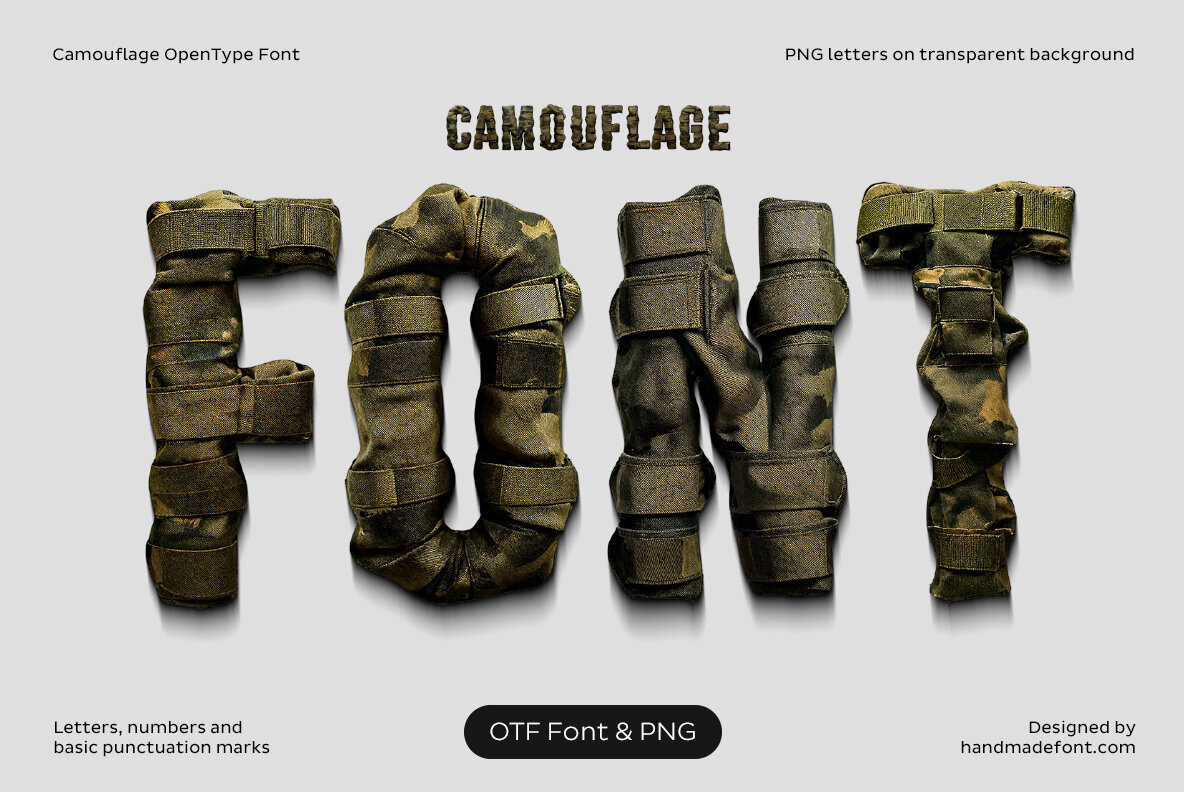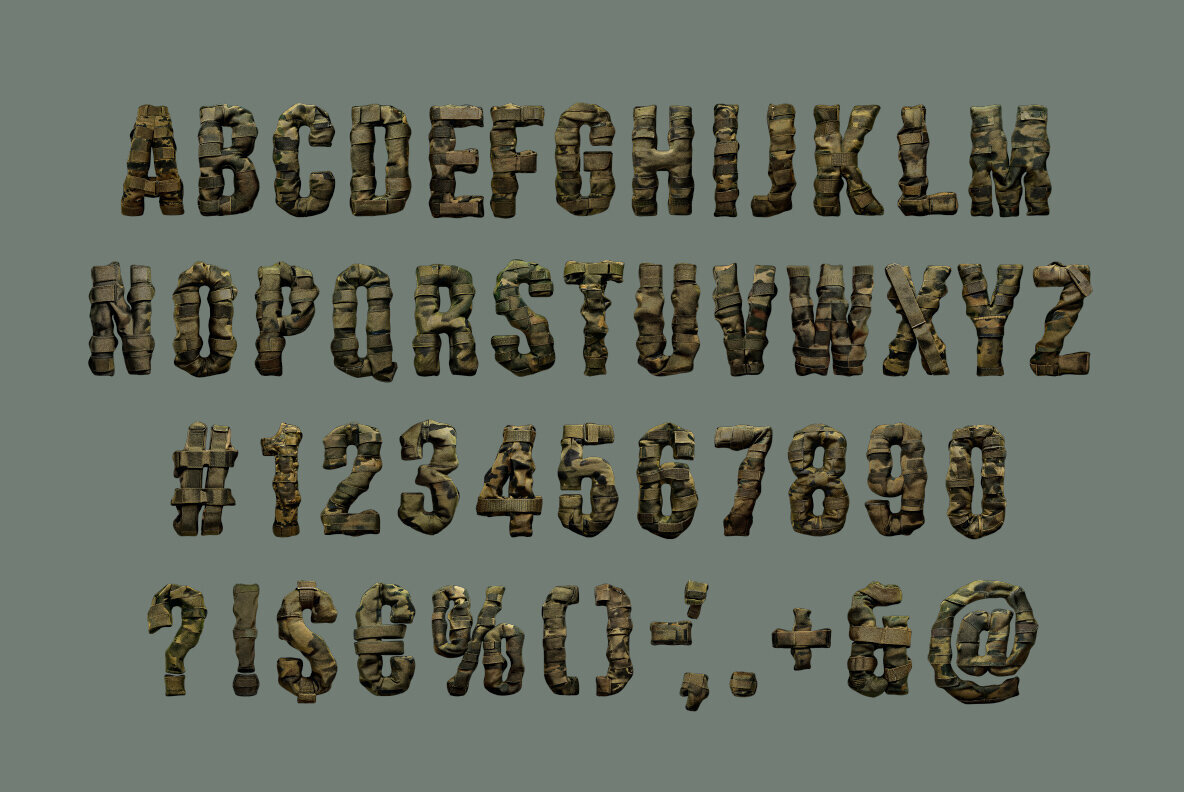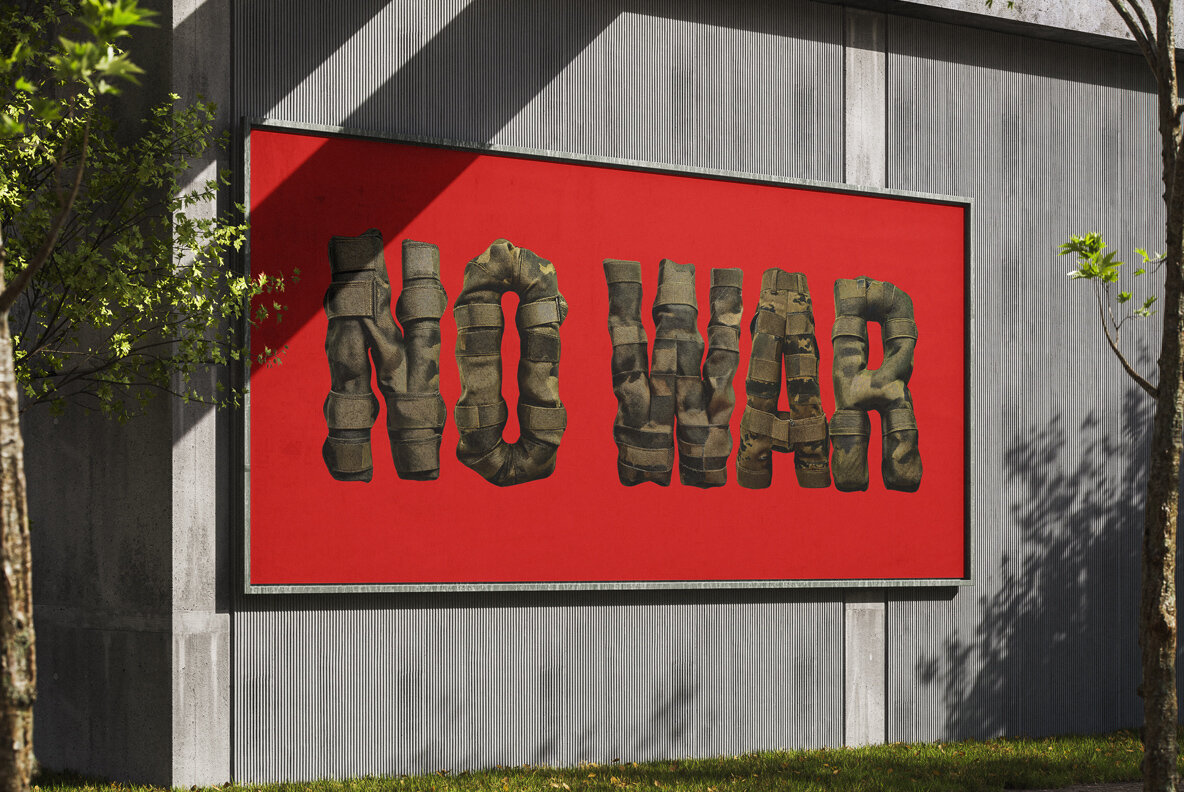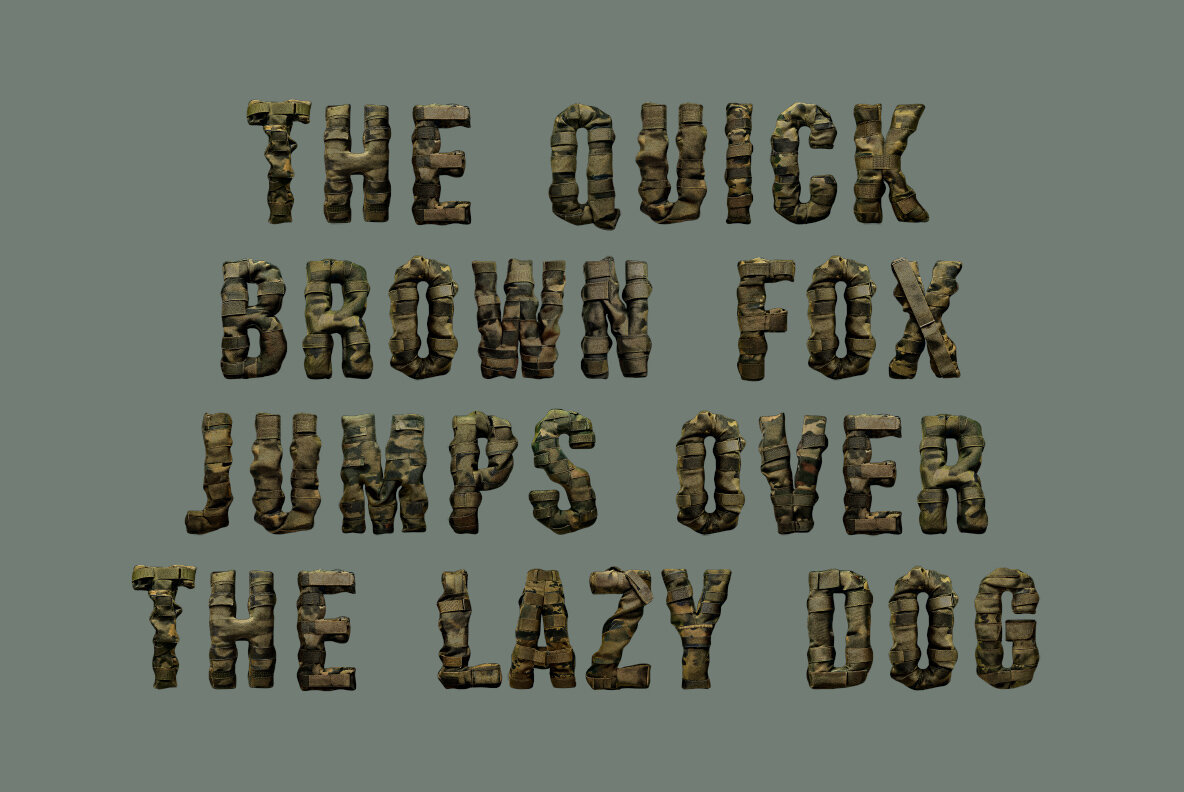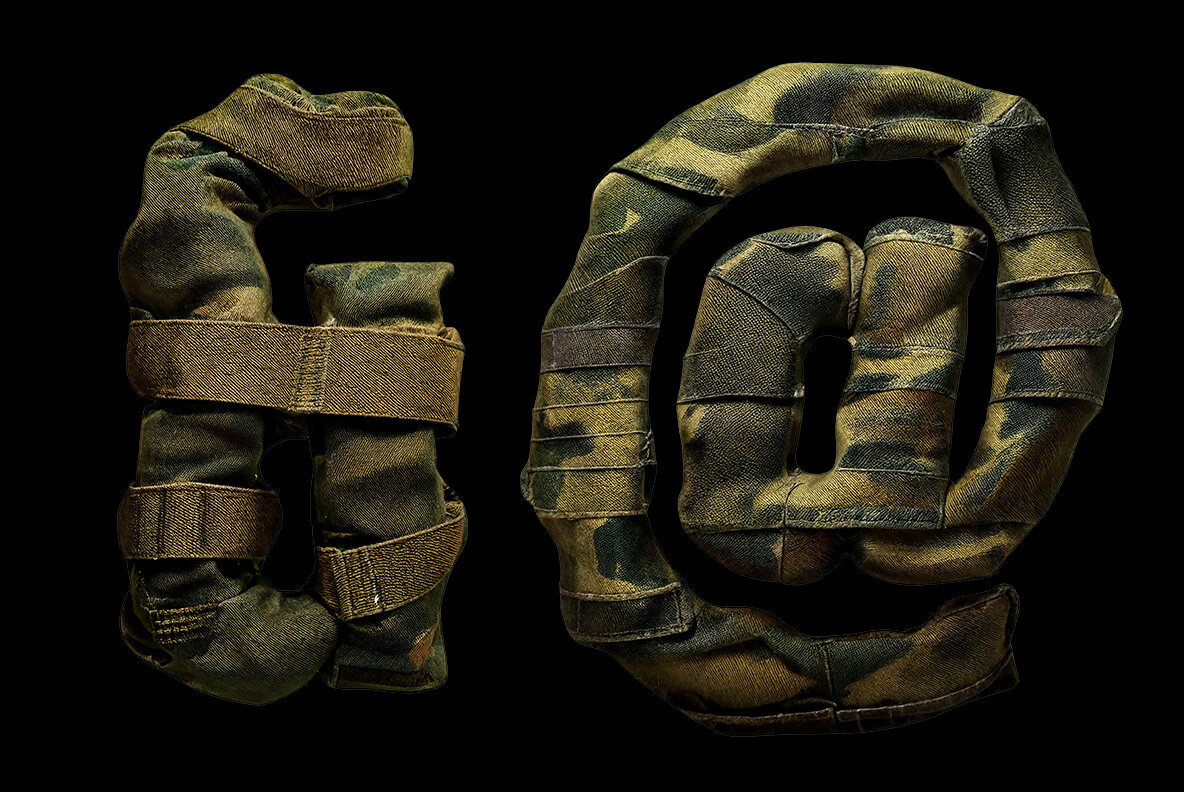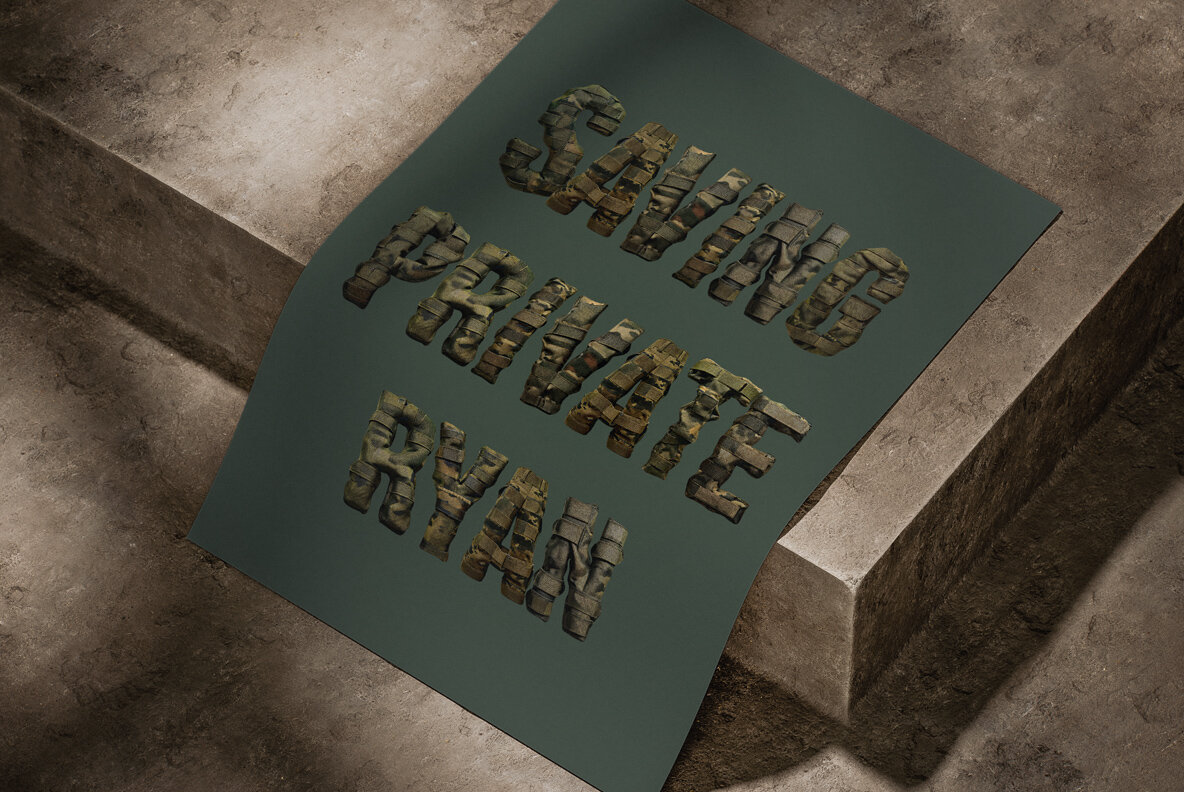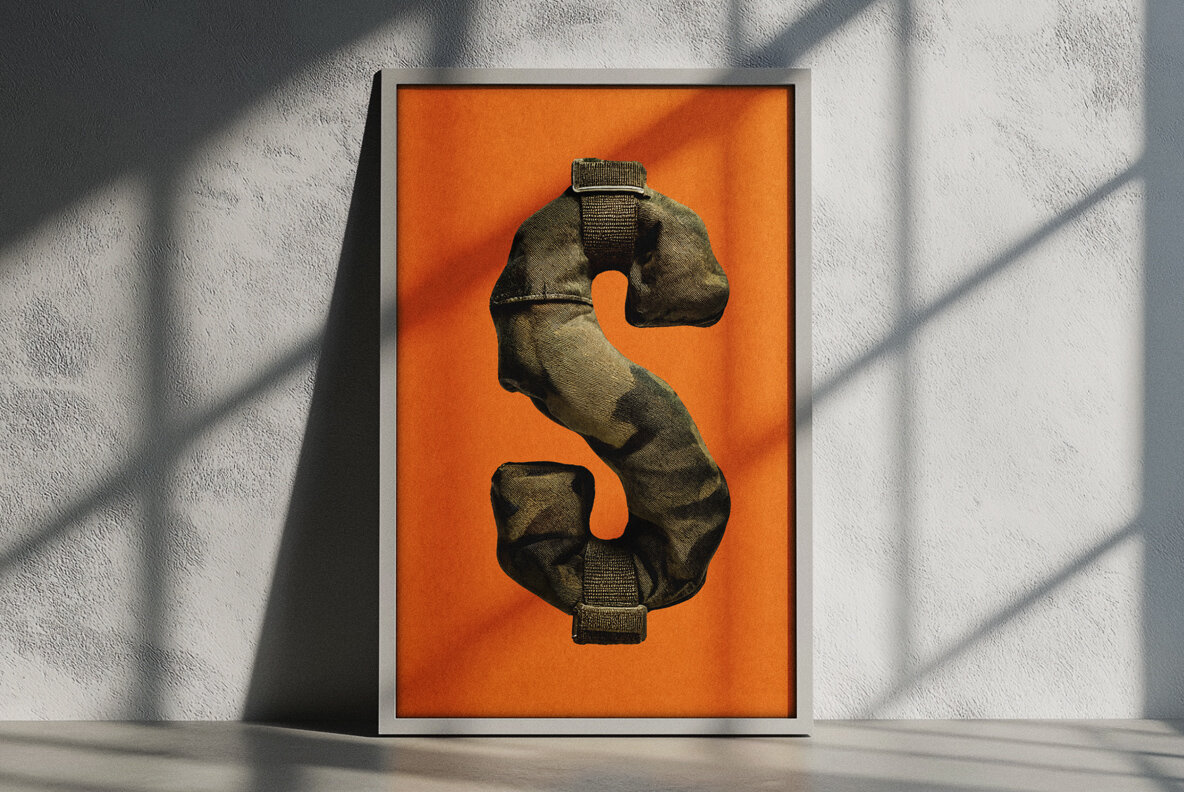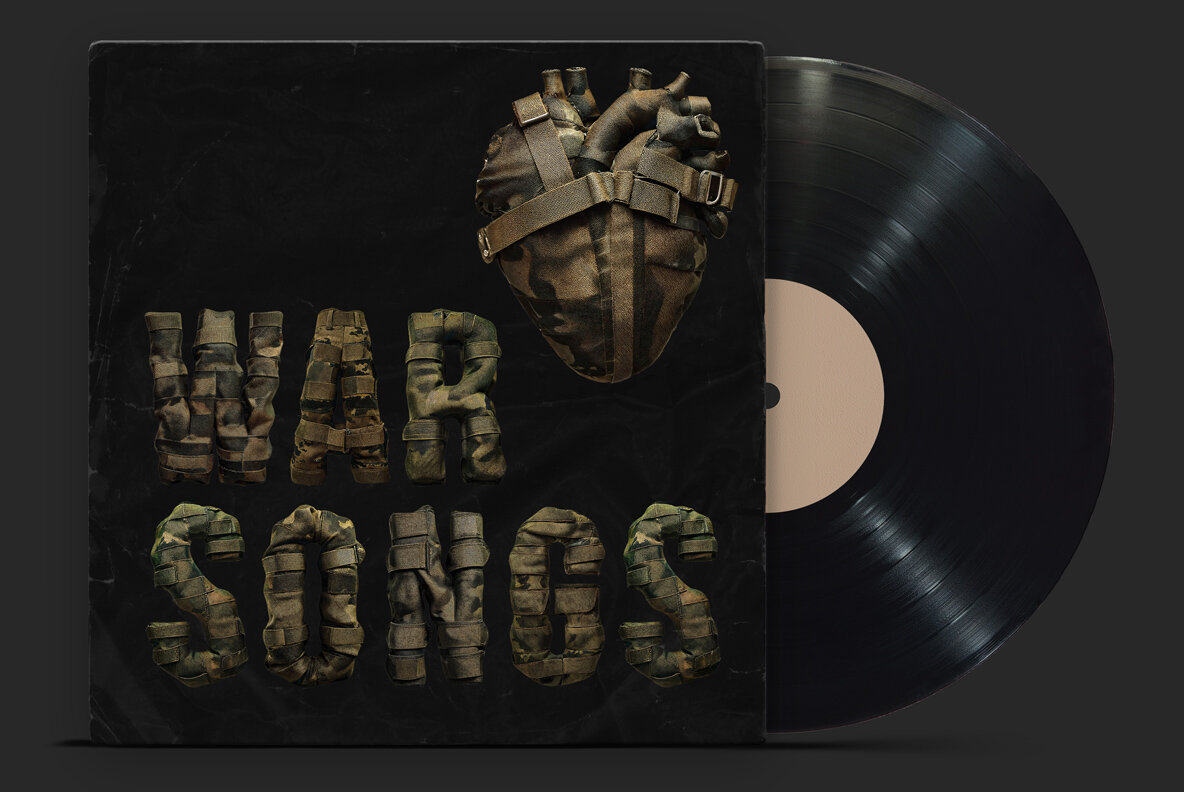
Camouflage SVG Font
Unleash the bold, tactical spirit of the Camouflage Font, a daring typeface forged from military-grade imagination. Each character brings a rugged, combat-ready vibe, meticulously crafted from camouflage fabric with realistic seams and Velcro-like textures. Perfect for war-themed designs, military posters, and survival gear branding, this font doesn’t blend in—it stands out with a powerful presence.Camouflage SVG Font